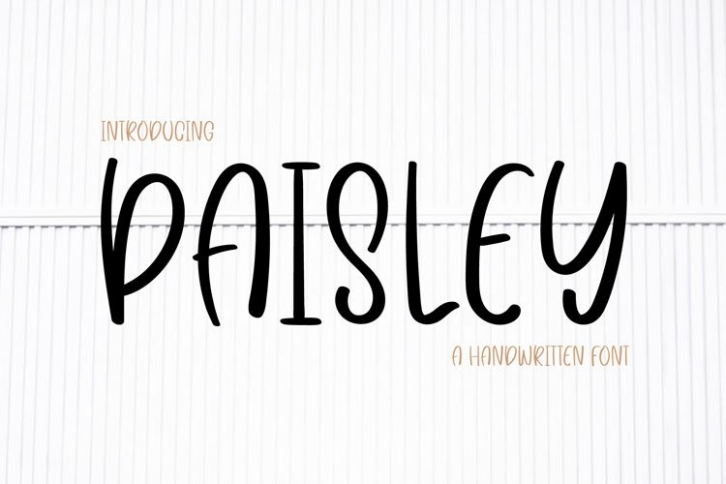
Paisley is a beautiful font that was designed by TS STUDIO ARTS. It's a great choice for designers and creatives who need such a font. It was released on October 11, 2020 and the file size is 12.14 MB. Paisley may give a more youthful, expressive and casual look to your project. It is a very beautiful, refined, elegant, and high-quality font.